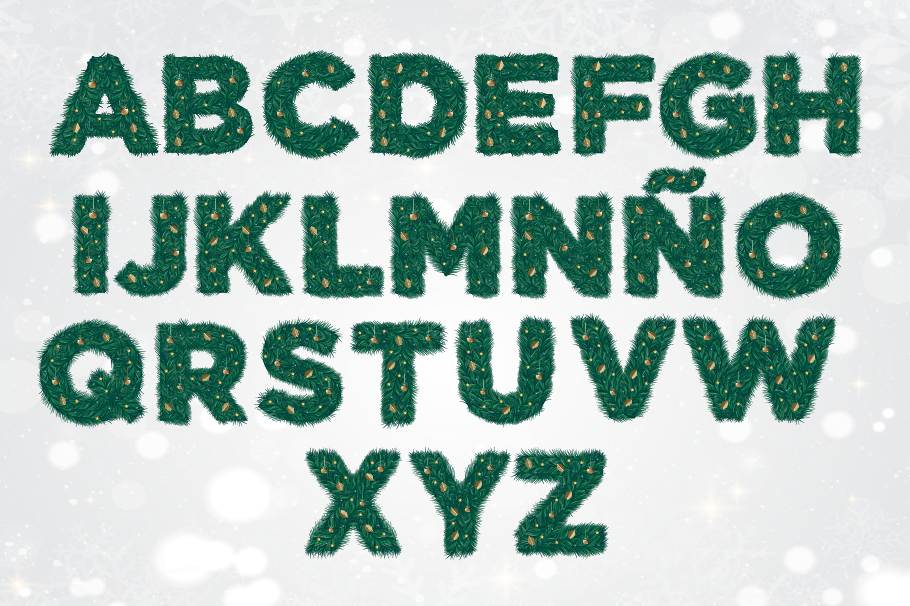
Christmas Font
Christmas Color Font SVG
Beautiful and decorative typography to use in Christmas pieces.
The OTF version would not load in FontLab Pad. The TTF font did, go figure for it being a color SVG font... It is a beautiful pine tree font.